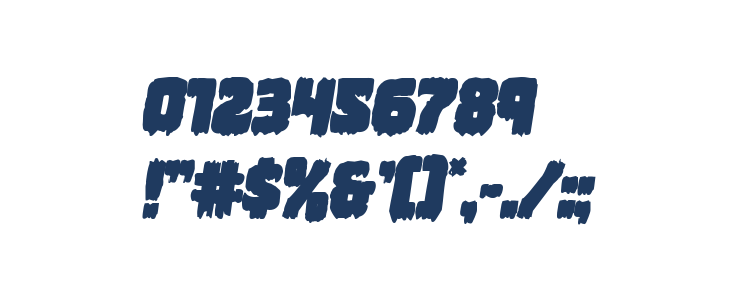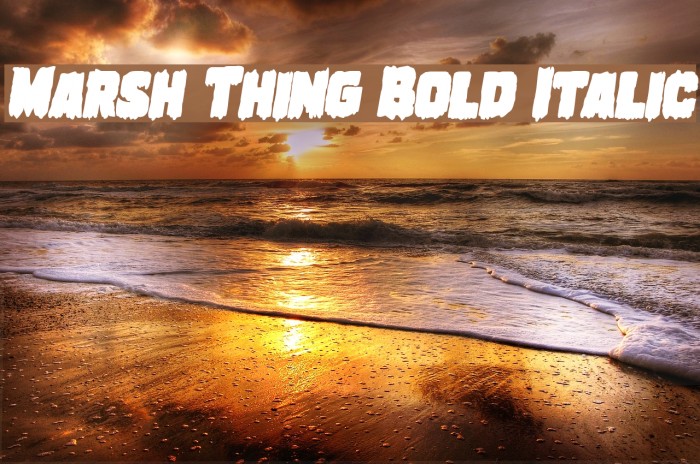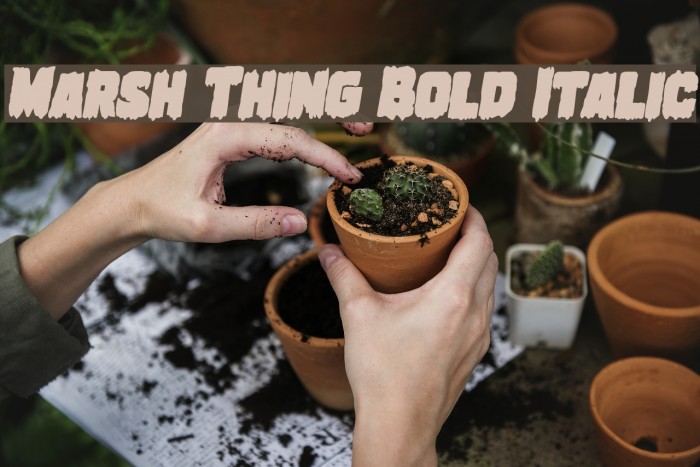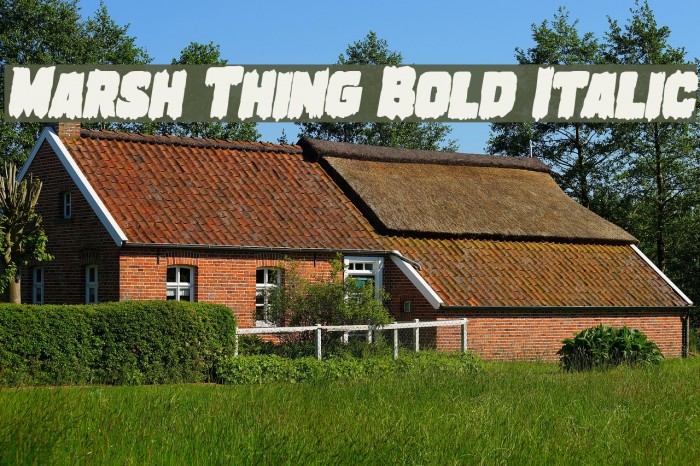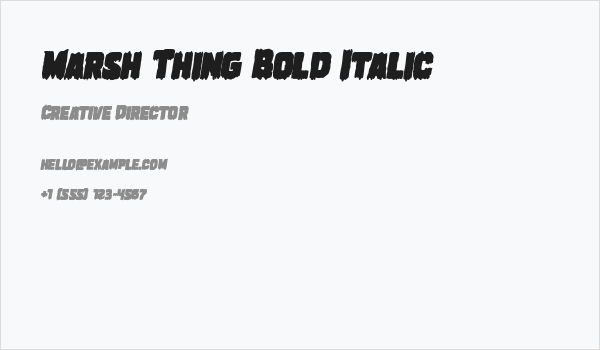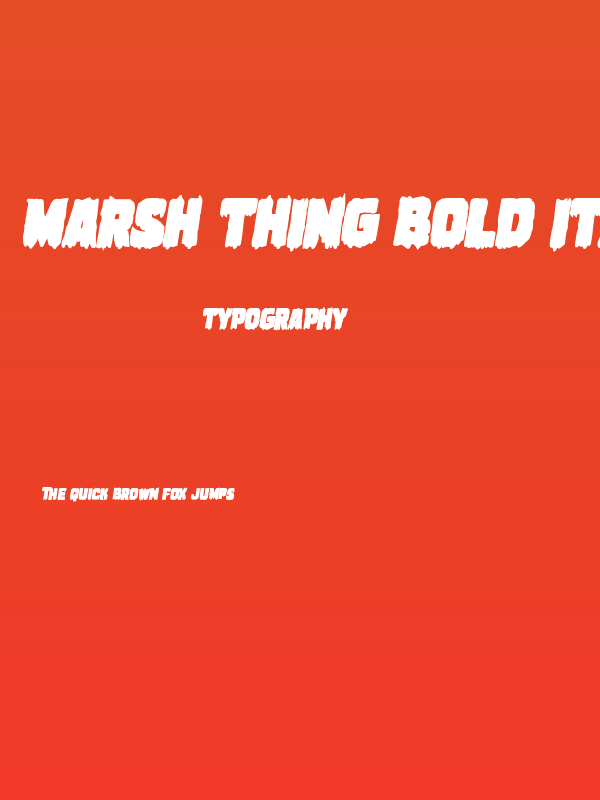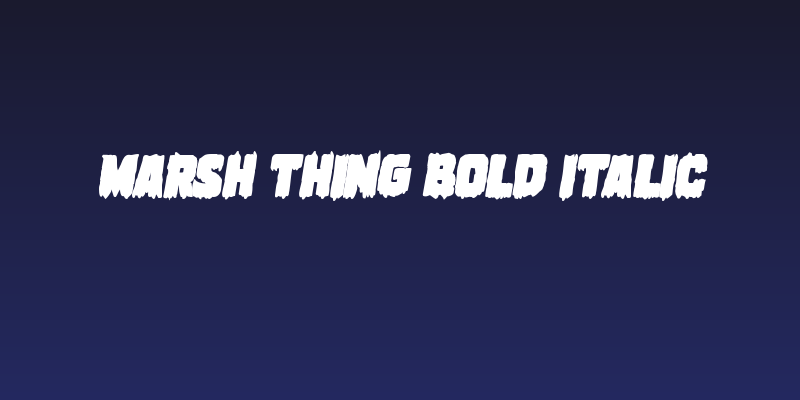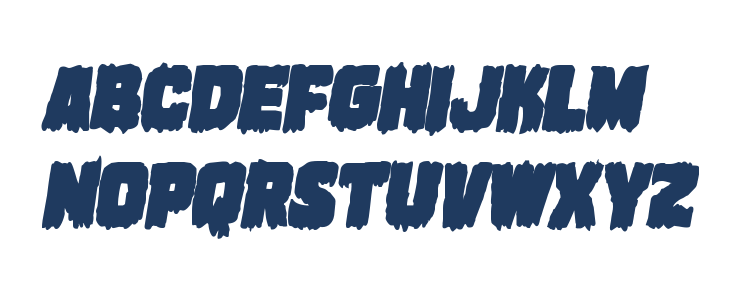
Marsh Thing Bold Italic Font
Marsh Thing Bold Italic Description
This font features a bold and italicized style with a rugged, textured appearance reminiscent of organic or natural elements. The characters have a rough, uneven edge that gives them a dynamic and energetic feel. The uppercase and lowercase letters maintain a consistent thickness, contributing to a cohesive look. The numbers and special characters share the same bold and textured characteristics, ensuring uniformity across all glyphs. This font's unique style makes it stand out, ideal for projects that require a strong visual impact.
| Proposed Projects | Ideal for horror-themed designs, posters, album covers, and any project requiring a bold, eye-catching typeface. |